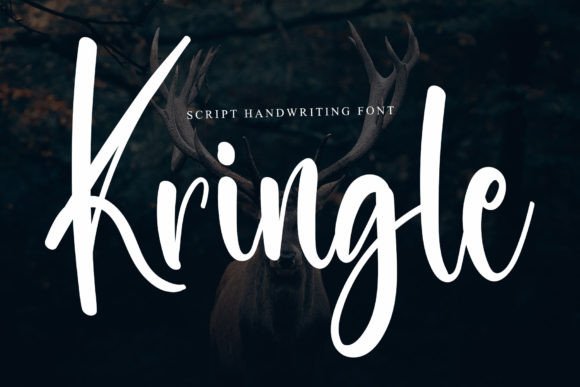
Introducing Kringle Font, the epitome of elegance and sophistication in the world of script fonts. Created by the talented YanStudio, this font is not just visually stunning, but also packed with features that will elevate your business to new heights.
With its sleek and dainty design, Kringle Font is a perfect choice for any project that demands a touch of class. Whether you're designing a logo, working on a branding project, or creating labels for your products, this font will effortlessly enhance the visual appeal and professionalism of your work.
Capture the essence of beauty and grace with Kringle Font. Its delicate strokes and exquisite details make it an ideal choice for photography projects, adding a touch of elegance to your images. Use it as a watermark to protect your valuable creations or make your special events even more memorable with its captivating script taste.
But what sets Kringle Font apart from the rest is its versatility. This font is PUA encoded, which means you have access to a vast collection of glyphs and swashes. Unlock a world of creative possibilities and personalize your designs like never before. Let your imagination run wild and create unique combinations that will leave a lasting impression on your audience.
Kringle Font is more than just a typography choice – it's a statement. It exudes confidence, professionalism, and a commitment to excellence. With its wide range of applications, this font is your secret weapon to stand out in the competitive business world.